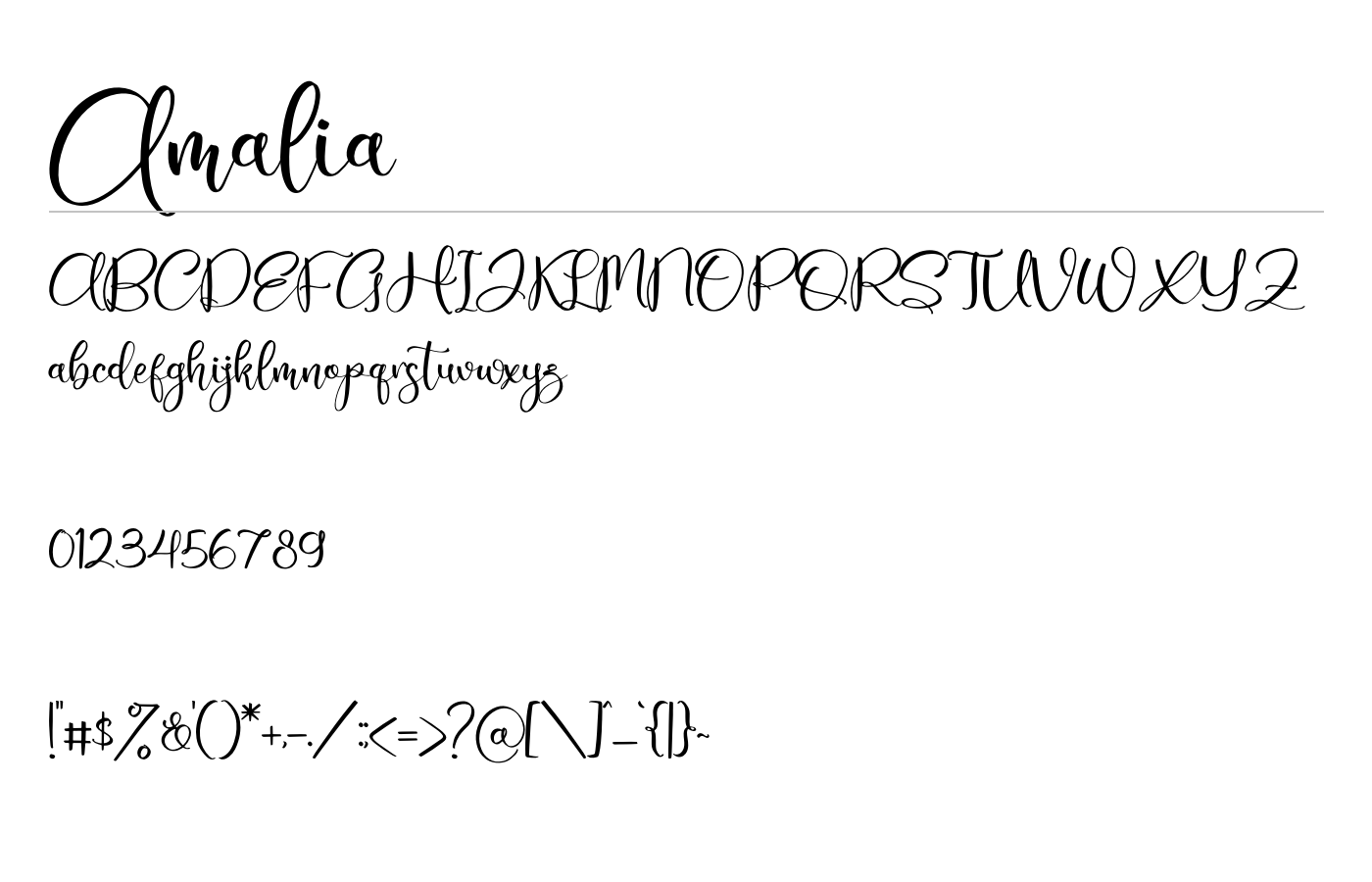
Amalia is a delicate, script-style font with elegant, flowing letterforms that blend thin, graceful strokes with gentle curves. Its light weight and decorative flourishes make it perfect for romantic or feminine designs, ideal for wedding invitations, fashion branding, or stylish headlines where a refined, handcrafted feel is desired. The font’s airy spacing and intricate details give it a sophisticated, personal touch that stands out in creative and luxury contexts.
Amalia Font
About Amalia Font